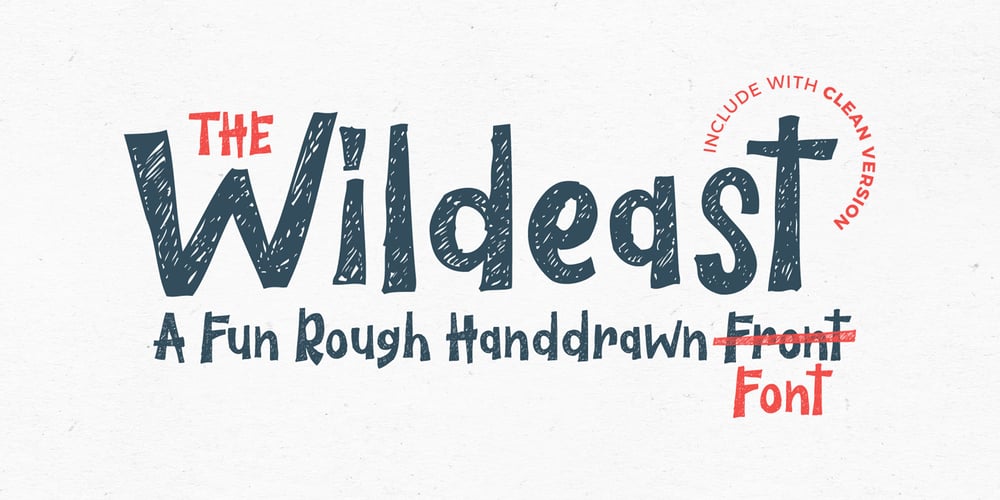
The Wildeast
The Wildeast font
The Wildeast Font Family was designed by Bagas Ardiatma and published by Trustha. The Wildeast contains 2 styles and family package options. The Wildeast is a fun rough handdrawn font. It has a fun, natural and dynamic style that makes it perfect for branding, poster, book covers, clothing designs, flyer, merchandise, packaging, quote, fashion campaigns, logo, movie, album covers, and offer design and more.